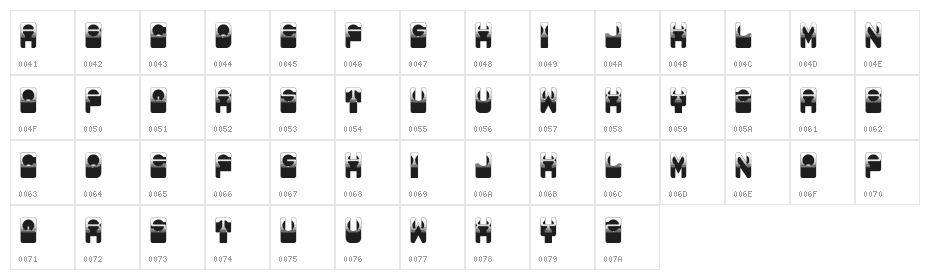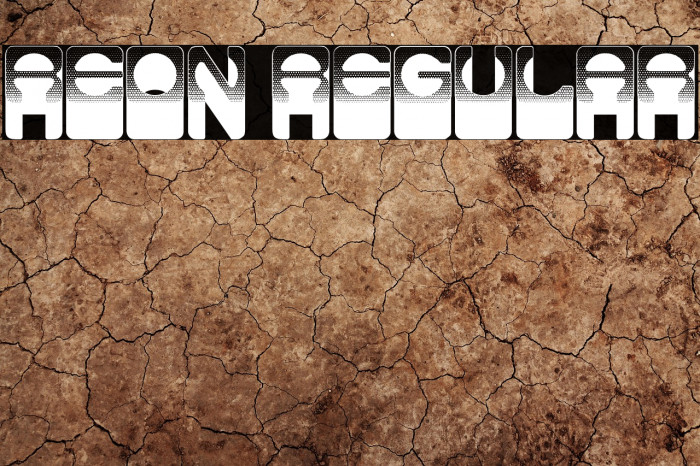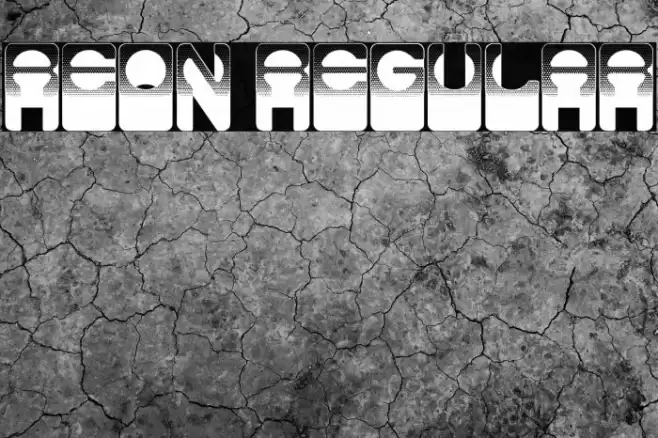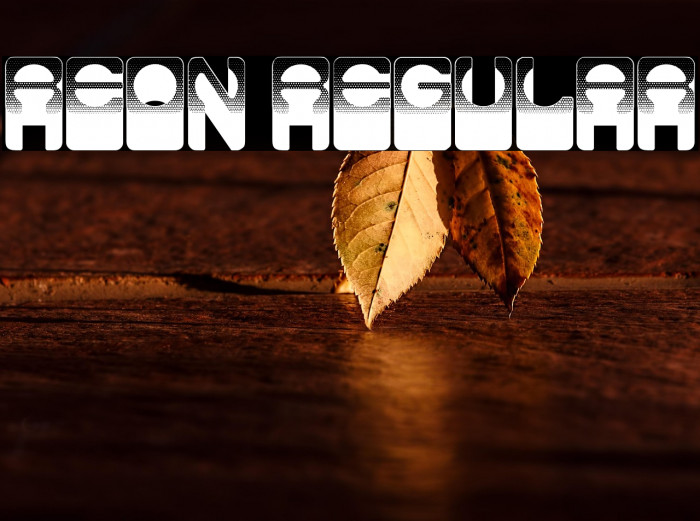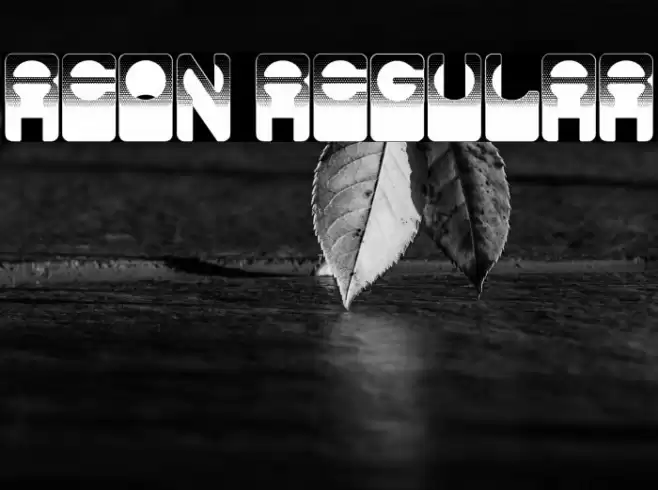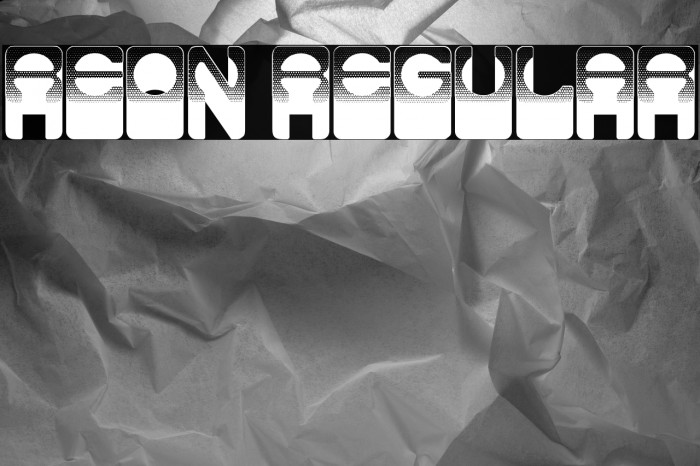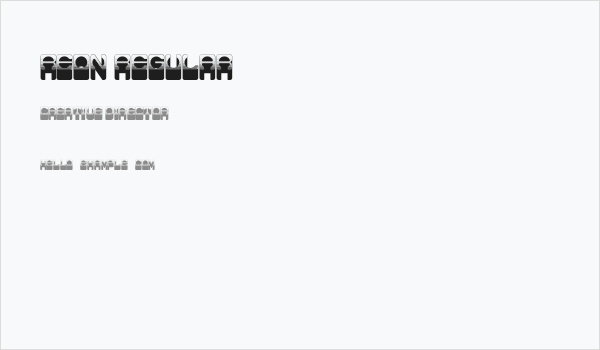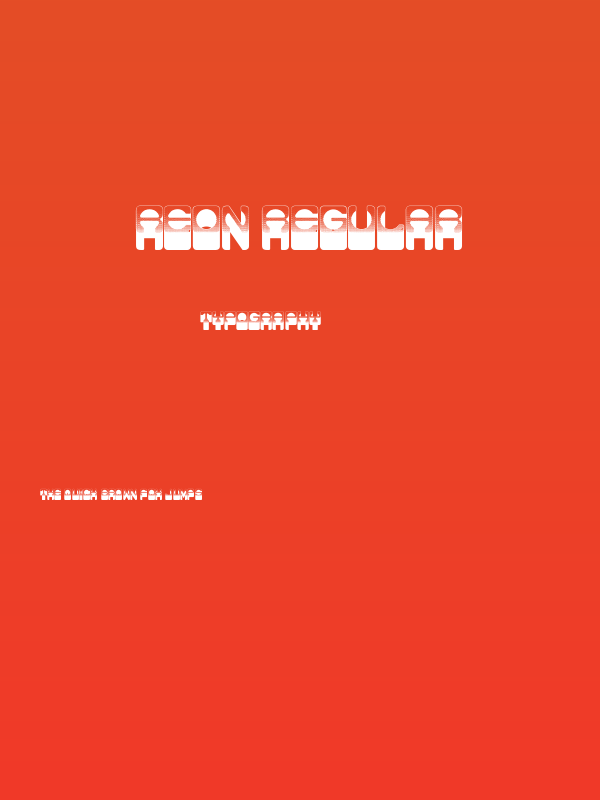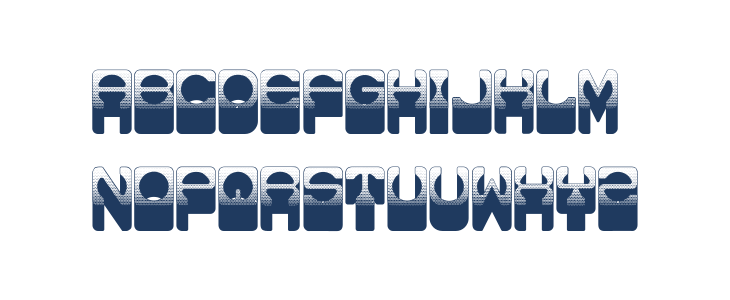
Reon Regular Font
Reon Regular Description
This font features a bold and striking design with a three-dimensional effect, created by a gradient shading that gives each character a sense of depth and volume. The letters are uniformly wide, with rounded edges that soften the overall look, making it both modern and approachable. The uppercase and lowercase letters maintain a consistent style, ensuring readability while adding a unique visual interest. The numbers and special characters are designed to match the boldness and style of the alphabet, making it a cohesive typeface for various applications.